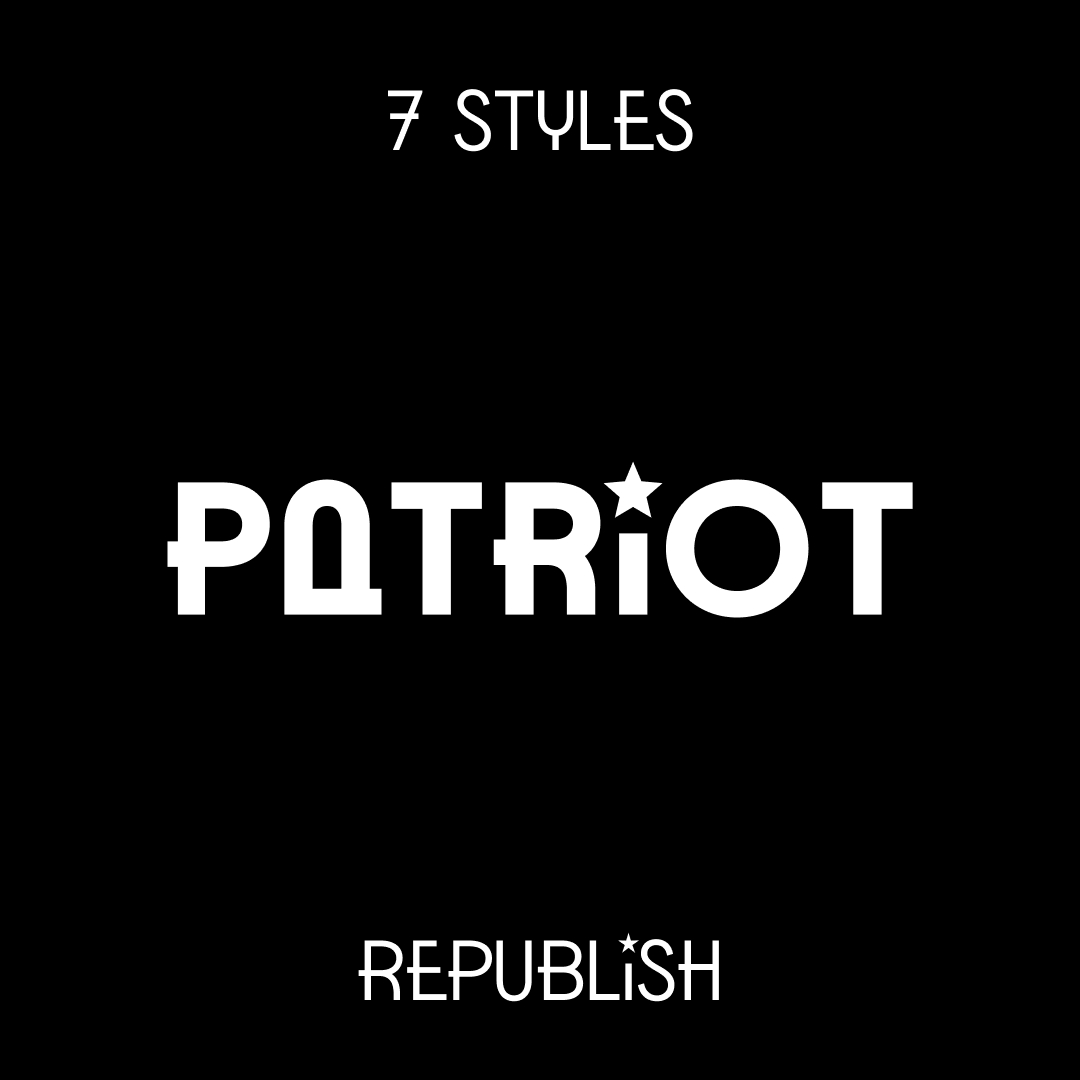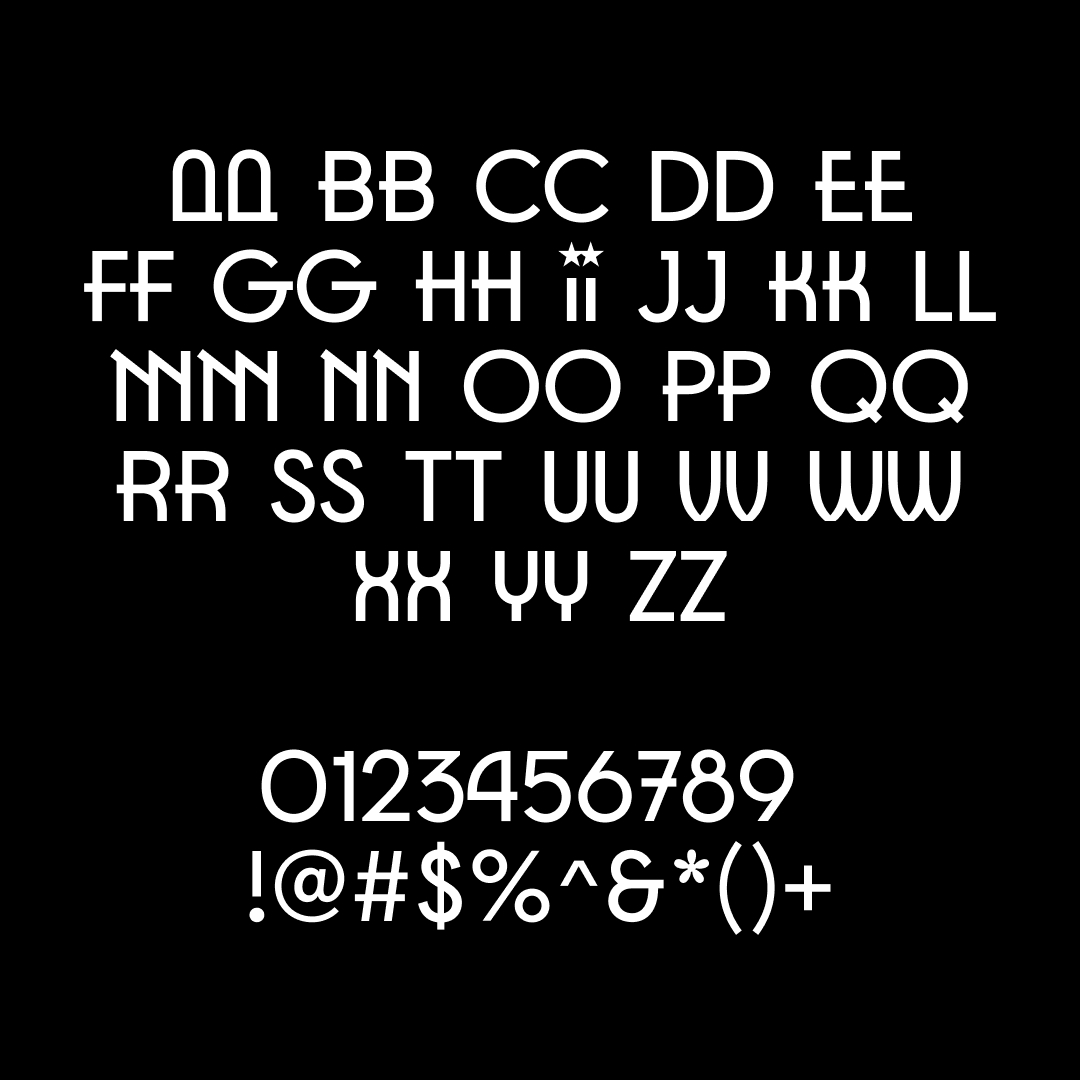
Inspired by a historic Vietnamese songbook and infused with elements of Art Deco, Bauhaus, and Constructivism, Patriot is a bold and utilitarian display sans-serif typeface. It is available in seven weights: Light, Regular, Normal, Medium, Bold, UltraBold, and Black, offering a progressive and influential voice for various design applications.